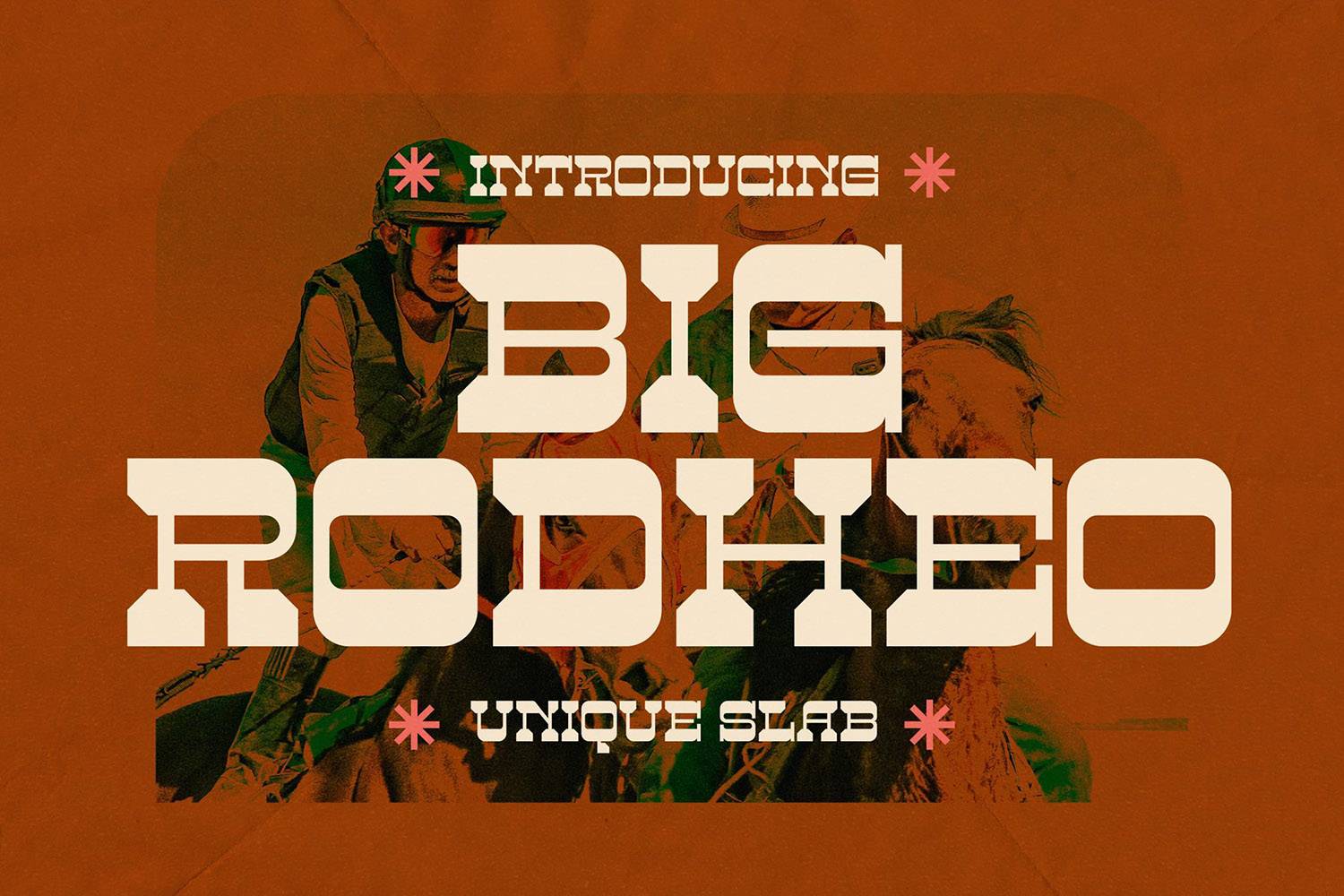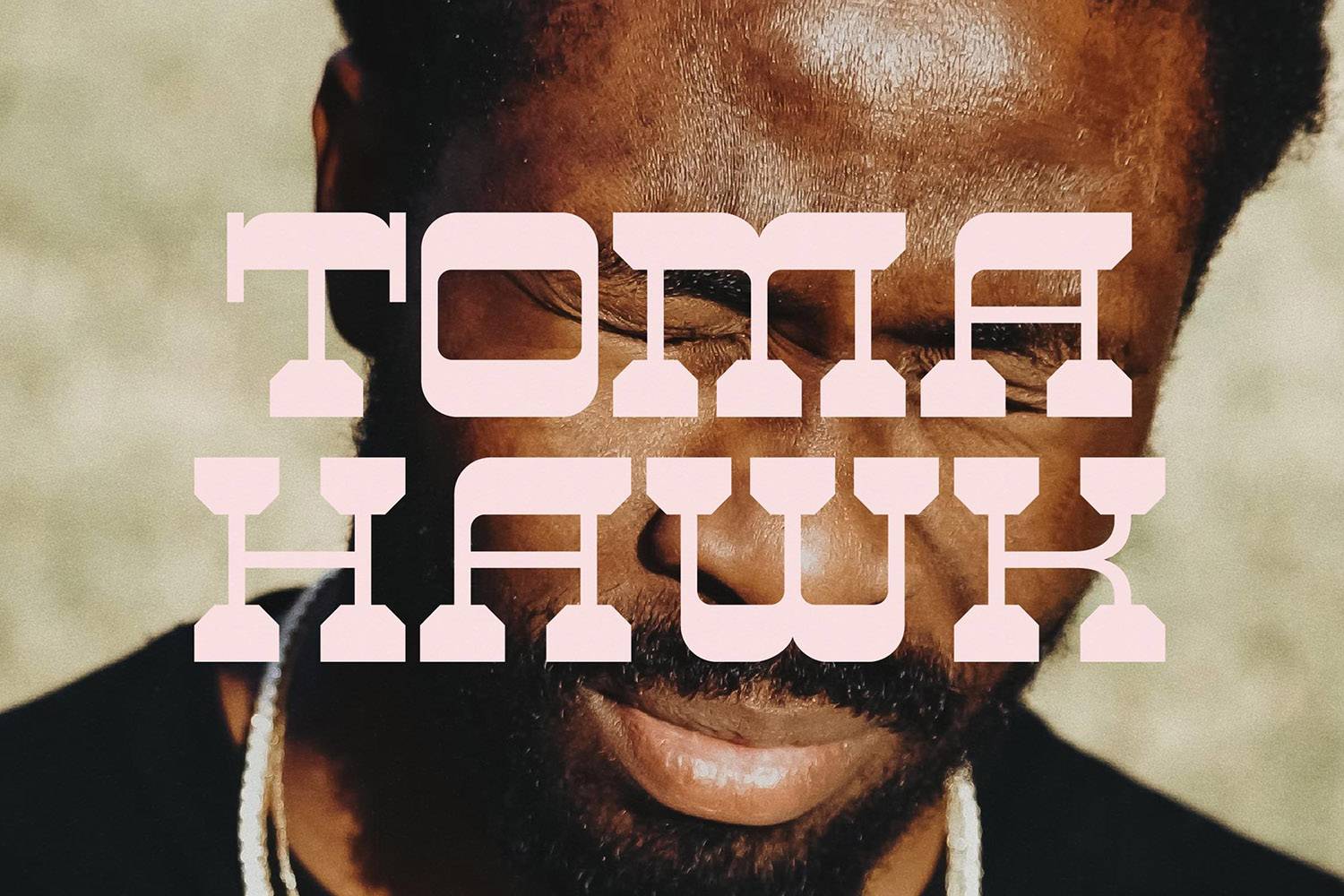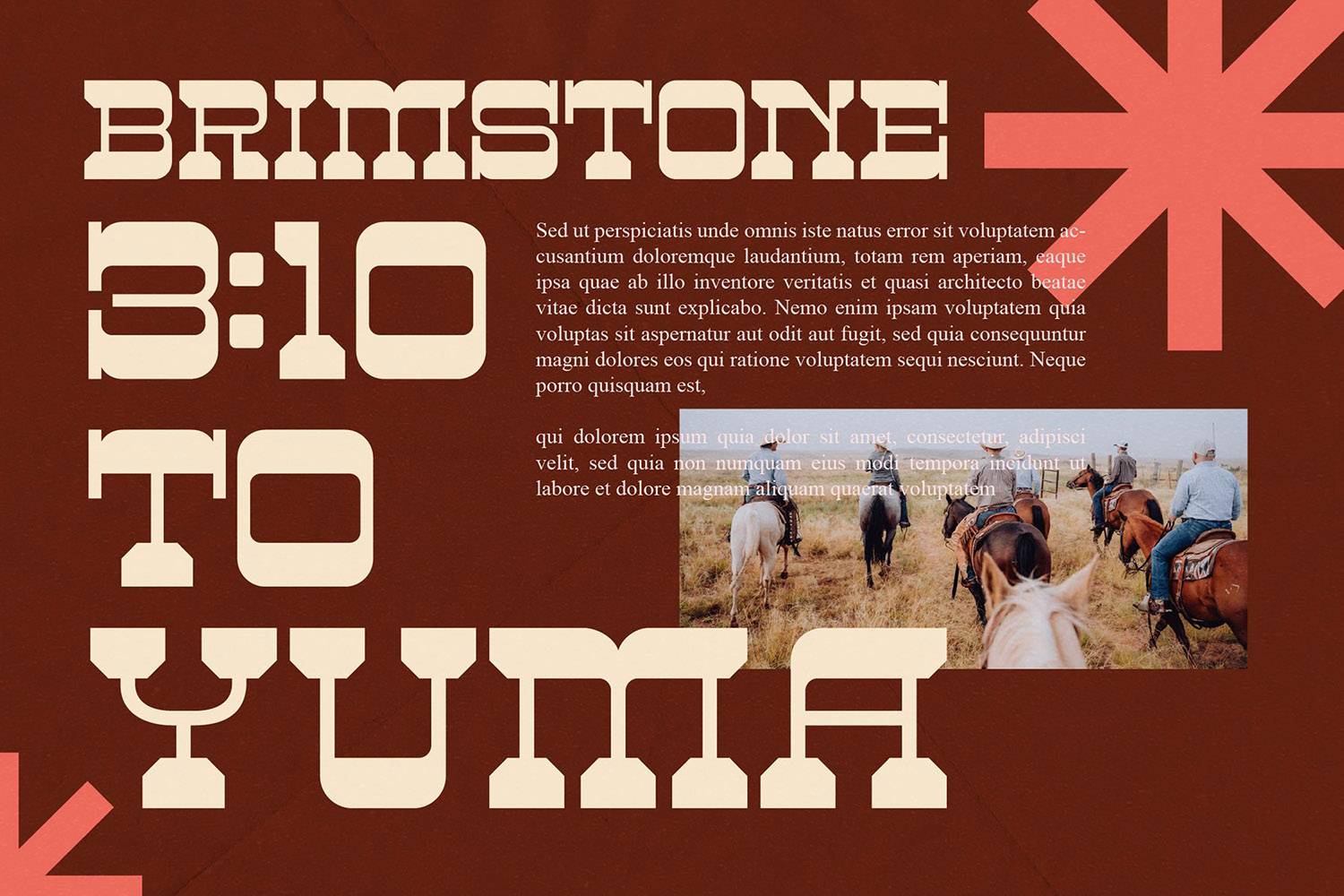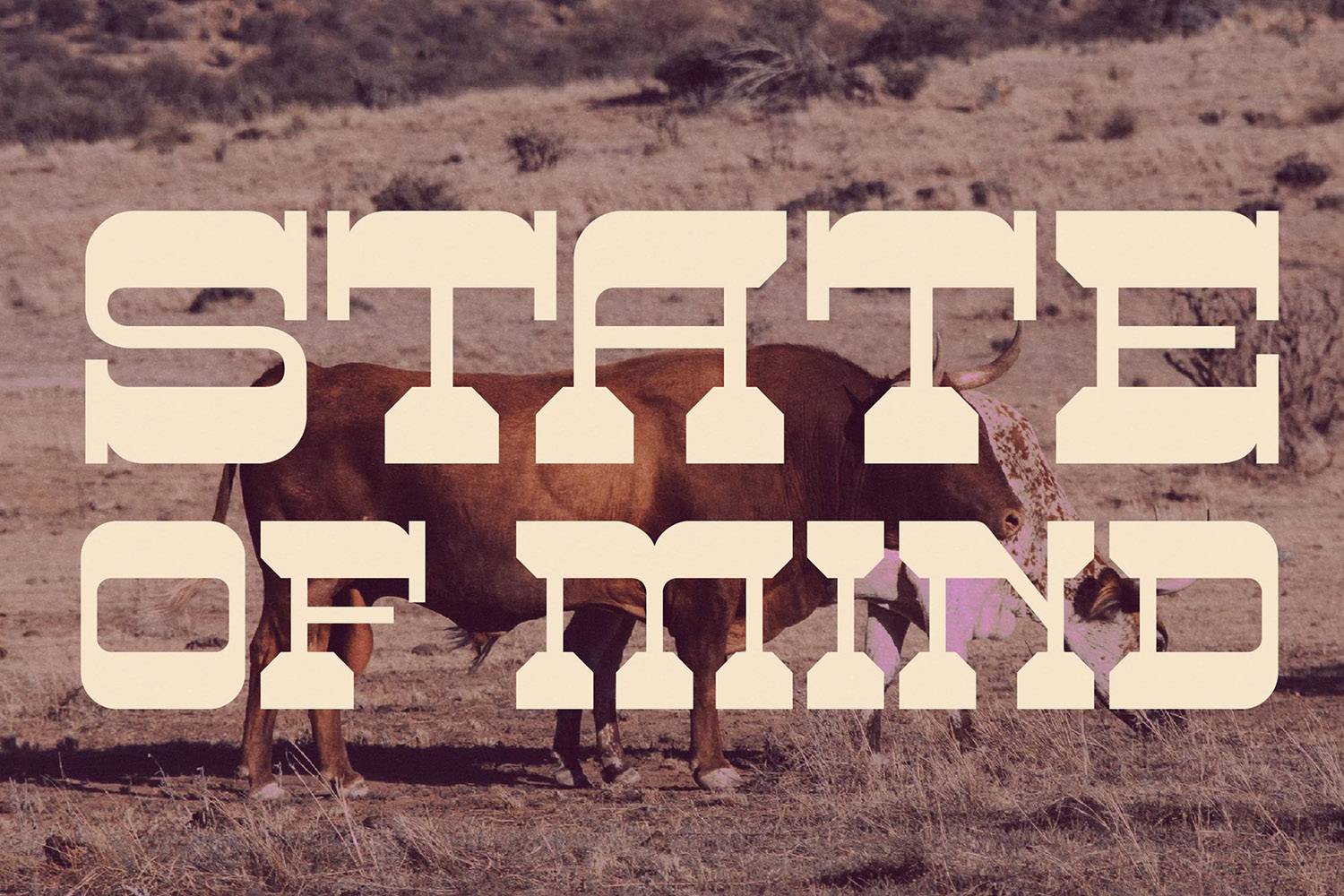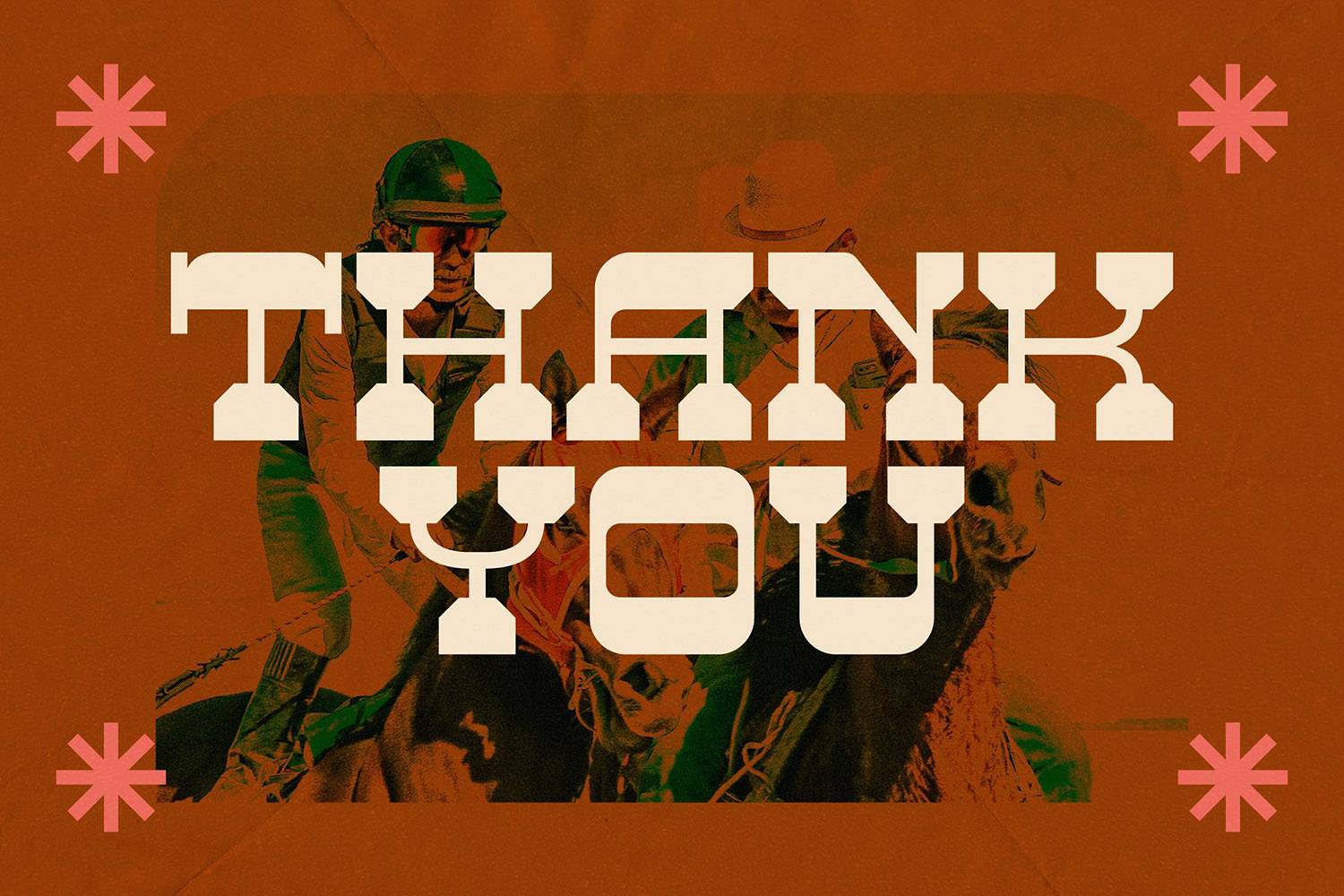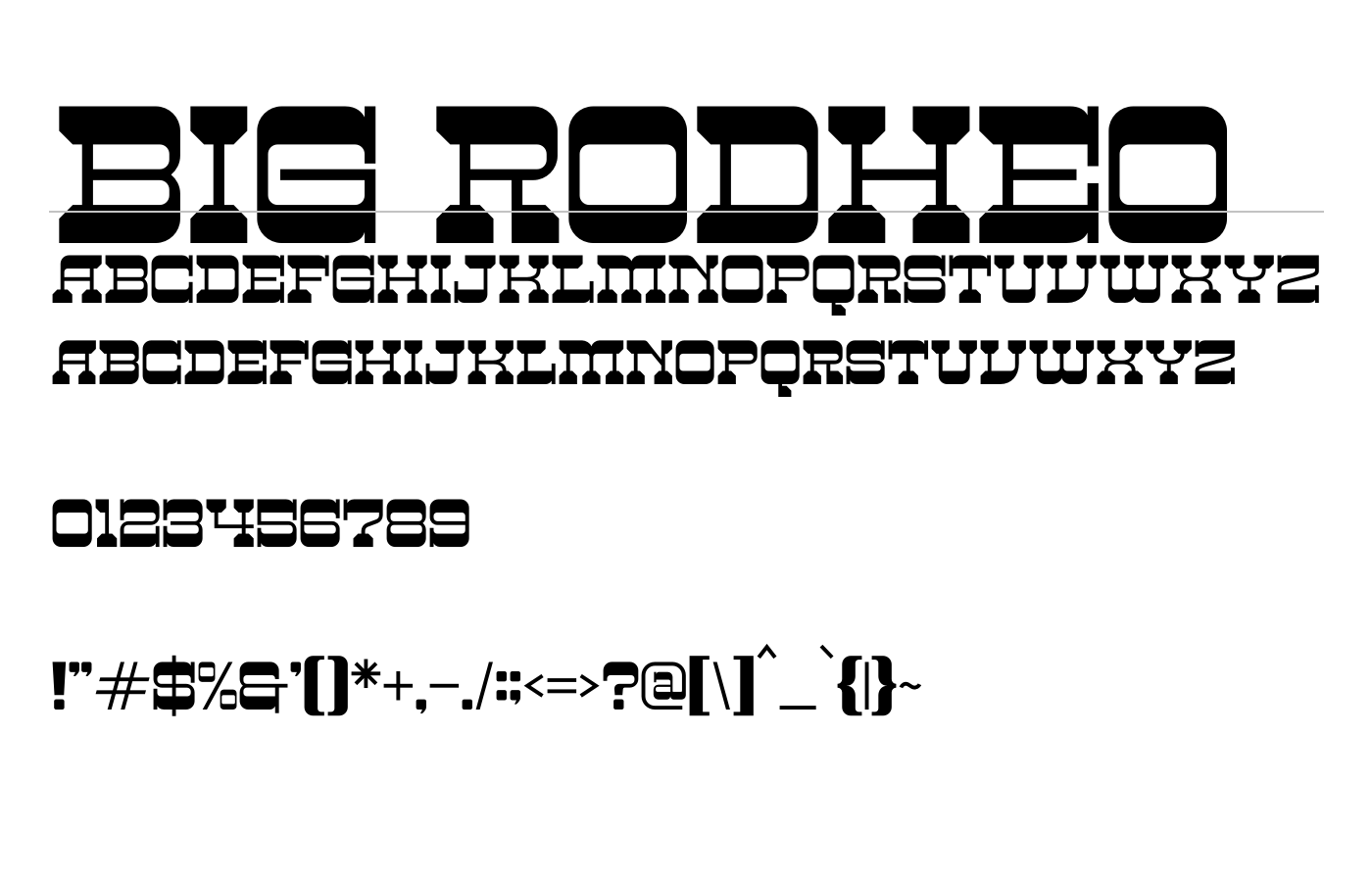
Big Rodheo is a bold slab serif font with a strong, industrial vibe characterized by its thick, blocky serifs and geometric shapes. Its heavy weight, tight spacing, and distinctive cut-out details give it a vintage yet modern feel, making it ideal for attention-grabbing headlines, posters, and branding that aims to convey strength and rugged character. This font suits projects that want to evoke a sense of toughness and boldness, such as outdoor gear, western-themed designs, and impactful logos.
Big Rodheo Font
About Big Rodheo Font